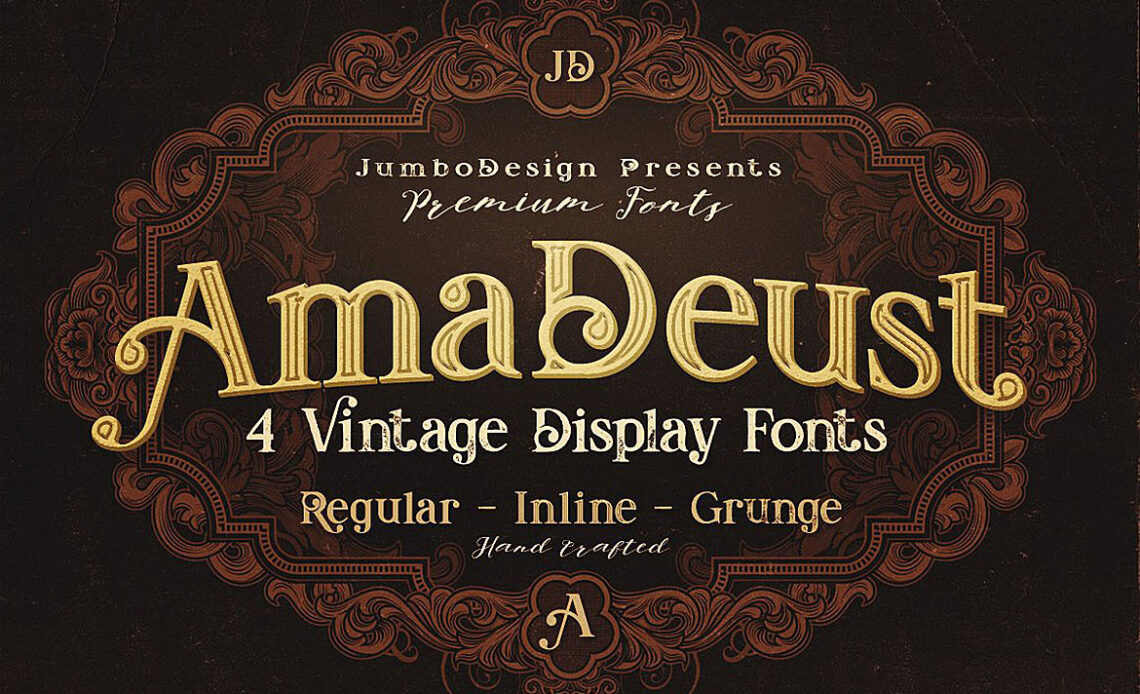
Welcome to the wondrous world of AmaDeust Font, an exquisite display font family designed by JumboDesign to captivate your senses and leave an enduring impression. AmaDeust is more than just a font; it's an artistic masterpiece that evokes nostalgia, elegance, and a touch of playfulness.
Step into a bygone era, where ornate typography graced the pages of classic novels, posters, and advertisements. AmaDeust captures the essence of vintage design, with its meticulously crafted serifs and alluring curves. Each letterform exudes a timeless charm that will add a touch of sophistication and refinement to your creative projects.
Visualize your designs adorned with AmaDeust's impeccable beauty. Whether you're creating wedding invitations, posters, logos, or website designs, AmaDeust will elevate your designs to new heights. Its four distinct styles—regular and grunge, inline and inline grunge—offer a range of options to suit your creative vision.
Immerse yourself in the regular and grunge styles to achieve a classic vintage aesthetic with a hint of ruggedness. The inline and inline grunge styles add an intriguing twist, bringing a modern edge to your designs. Explore the boundless possibilities, experimenting with different combinations and styles to create truly unique and captivating visuals.
AmaDeust is not just a font; it's an experience that will ignite your creativity and capture the attention of your audience. Its enduring elegance and versatility make it the perfect choice for designers, crafters, and anyone seeking to add a touch of vintage charm to their projects.